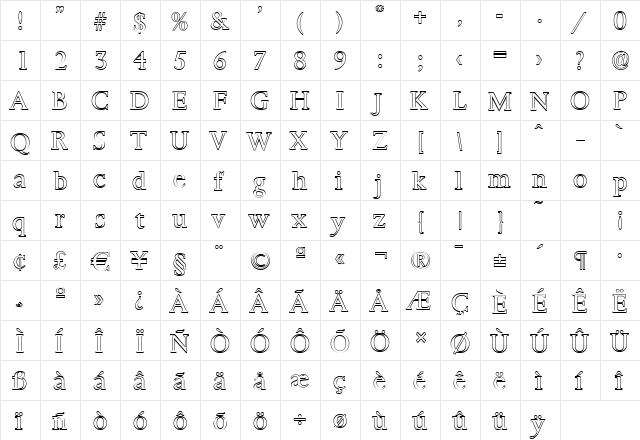
TobyBeckerOutline-Light Regular
Design Context for TobyBeckerOutline-Light Typeface
TobyBeckerOutline-Light is built around its visual character rather than neutral utility — its distinctive forms are designed to make an impression at display sizes. Its slender proportions lend an understated elegance to any composition.
Font Pairing: Pair with a clean neutral sans-serif for body copy to let TobyBeckerOutline-Light's character lead without overwhelming the composition.
Pro Tip: Use TobyBeckerOutline-Light exclusively at display sizes — it was designed to be seen, not read at length. Let a neutral companion handle body copy.